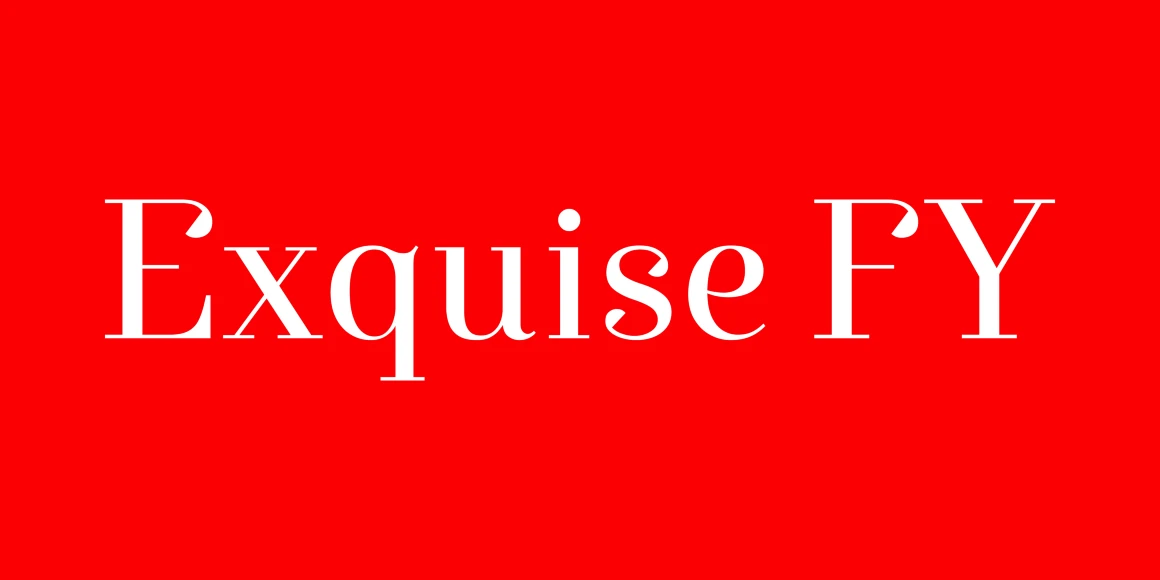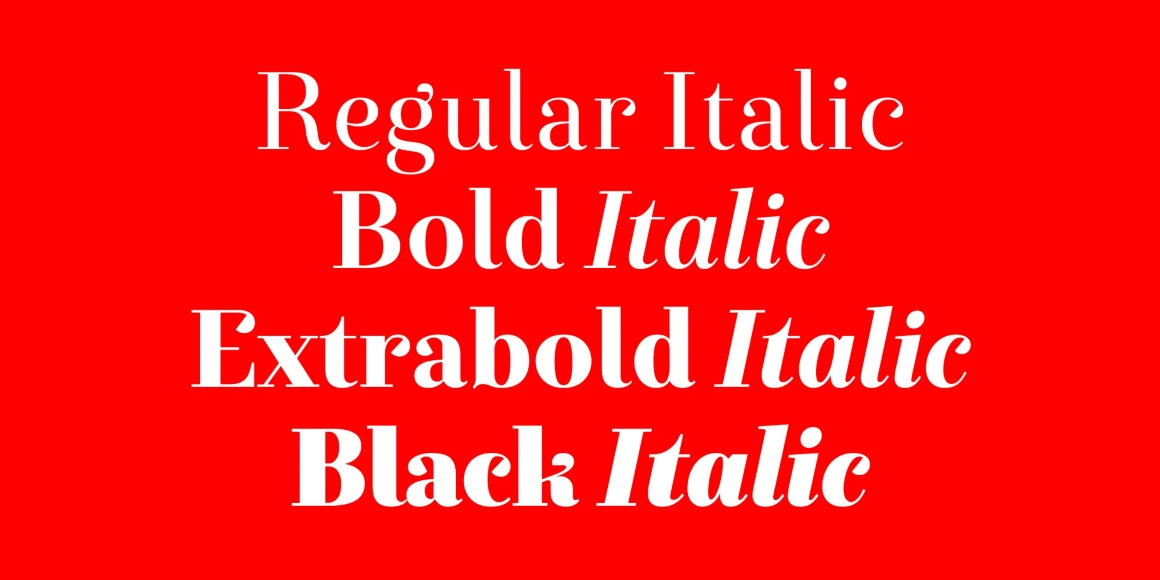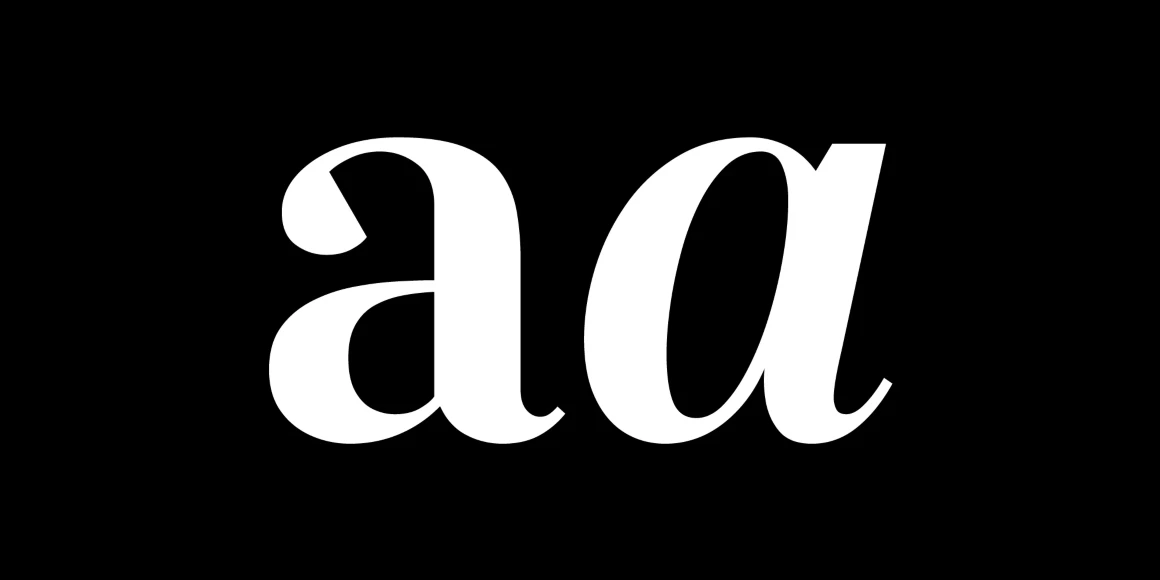
Exquise
From Black[Foundry]
Exquise FY is an elegant and distinguished serif family defined by unique details and refined shapes. It embodies the timeless Didone aesthetic while providing flexibility for a variety of design contexts. Its graceful forms combine originality with versatility, making it especially suited for editorial content, distinctive branding, and high-end visual identities where sophistication and clarity are essential. It is available as a Variable Font and in six styles, plus italics.
Designed by Alisa Nowak, Valentine Proust, Bertrand Reguron, Gia Tran & Elvire Volk